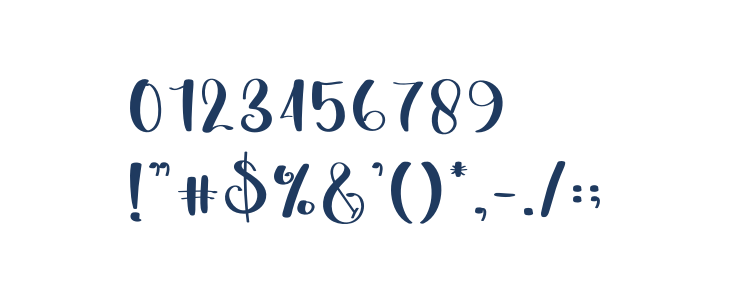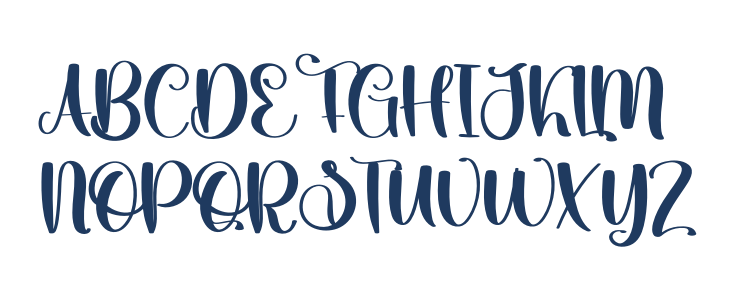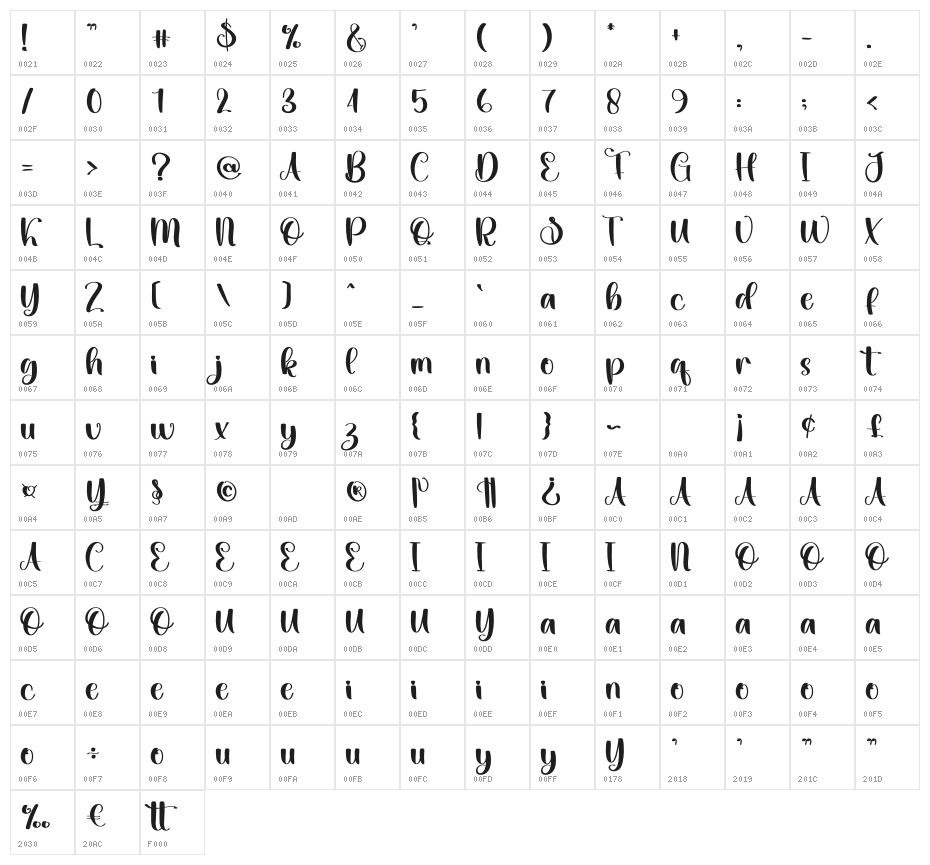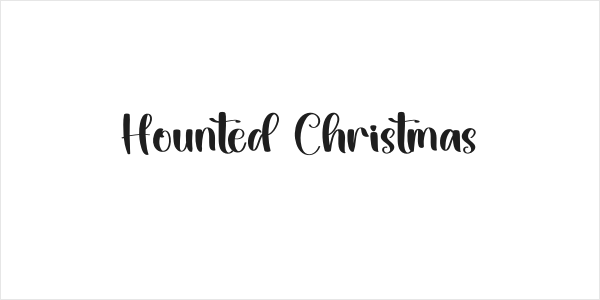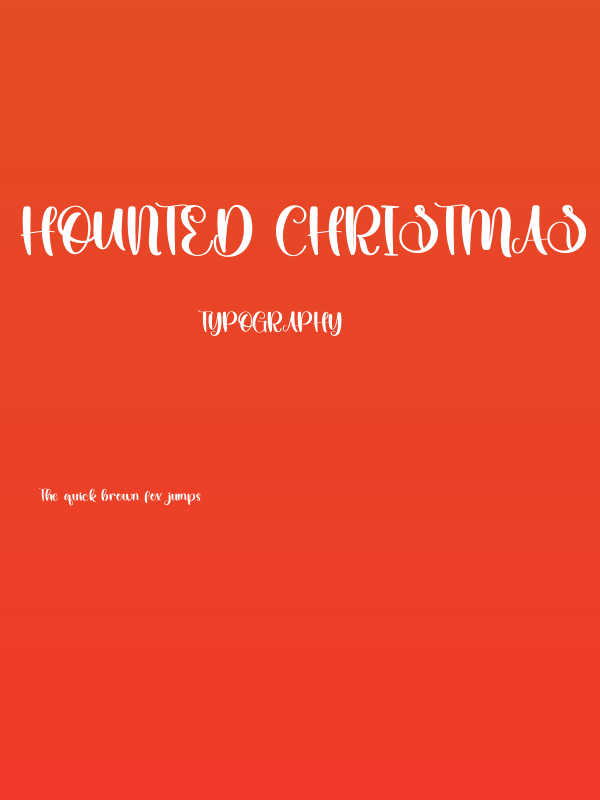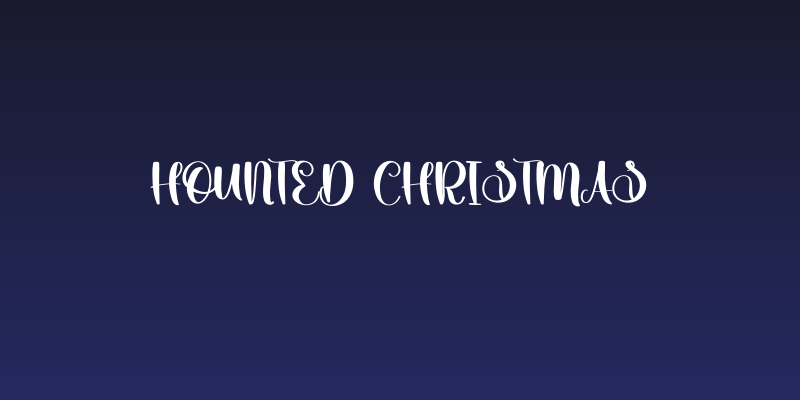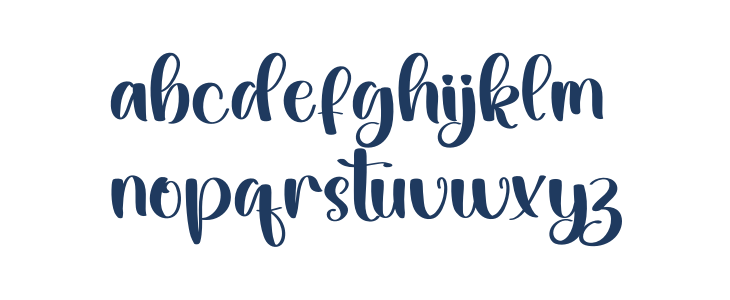
Hounted Christmas Font
Hounted Christmas Description
A playful, bold script font with exaggerated loops and swashes, featuring thick and thin stroke contrast and a handwritten, whimsical appearance. The characters are rounded and flowing, with decorative flourishes on many uppercase and lowercase letters.
| Overall Style | Decorative, Playful, Festive |
| Use Case | Headlines, Logos, Invitations, Greeting cards |
| Proposed Projects | Holiday cards, festive invitations, branding for seasonal products, decorative headlines, social media graphics. |